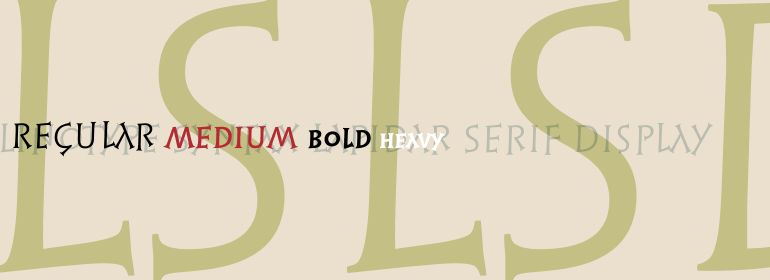
Linotype Syntax® Lapidar Serif Display
字体品牌: Linotype(Monotype) 设计师:Meier,Hans Eduard 字体分类:衬线体 字体属性:外文 字符集:Unicode 发布时间: 2018
Modeled on the writings chiseled in stone in the second century B.C., Syntax™ Lapidar is an energetic, spirited typeface designed by Hans Eduard Meier in 2000. Linotype Syntax Lapidar Text and Linotype Syntax Lapidar Serif Text have five weights each, with both cap and lowercase letterforms. Lapidar Display and Lapidar Serif Display also have five weights each, with mostly all cap letterforms and many alternates. It's a terrifically fun and inventive family, and if you look closely, you can see the resemblance to the more modern and restrained Syntax™ relatives. Great for menus, artist books, travelogues, or advertising - and if used very sparingly, it could add just the right element of lapidary significance to corporate documents.